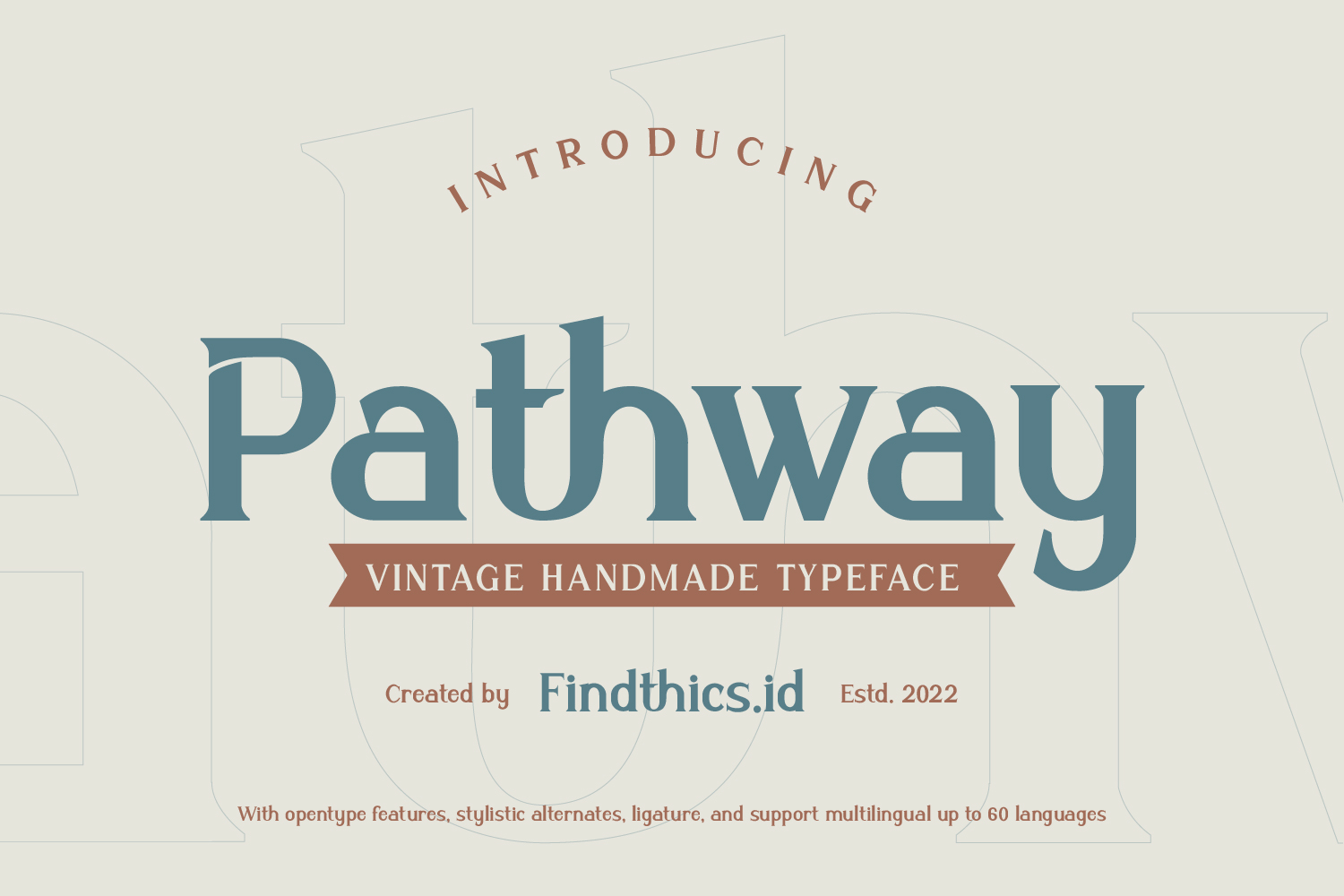
Pathway Font
Designed by Findthics.id
About Pathway
Introducing Pathway Font.
Pathway is a vintage serif font. Create from our talented font designer. The design of typeface will make your design more beautiful and inspiring. This font will suitable for any project, like branding, print template, logo and etc.